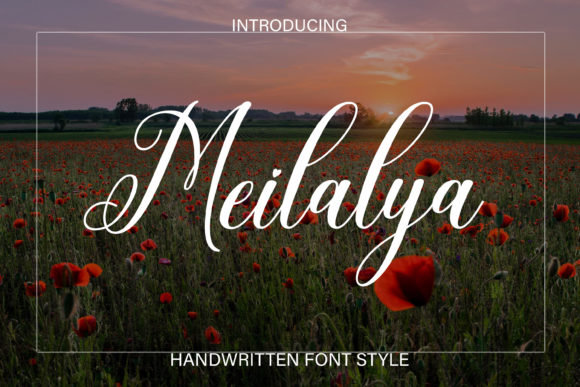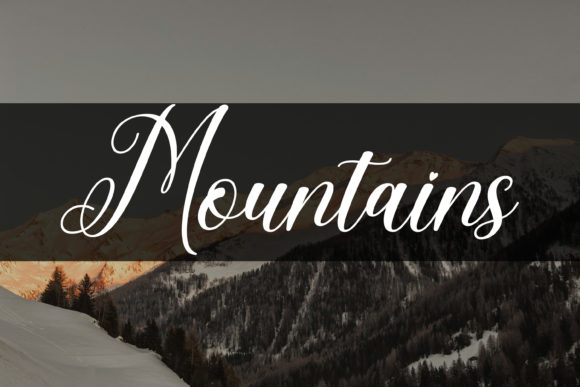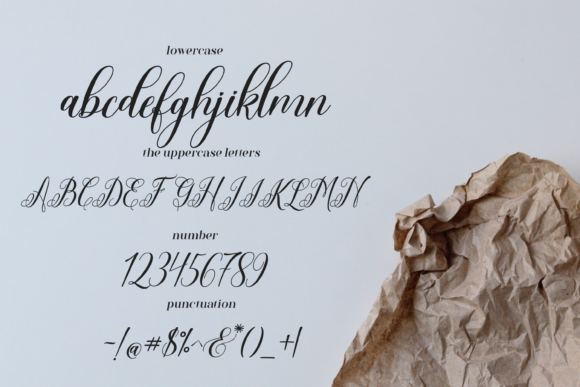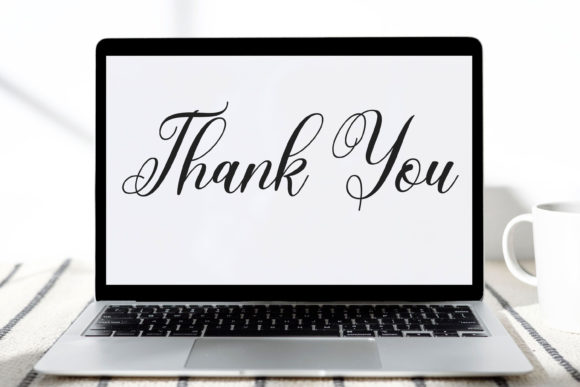
Meilalya Font
About Meilalya Font
**Meilalya** emerges as a magical script font, meticulously crafted with a touch of elegance. This font is designed to transform any creative idea into a true piece of art, making it a versatile and enchanting addition to various projects, from Instagram posts to DIY endeavors that call for the beauty of calligraphy scripts.
The magical essence of Meilalya is evident in its carefully created characters that evoke a sense of wonder and charm. Each letter is infused with a touch of elegance, creating a script that feels both enchanting and sophisticated. This font becomes a key element in turning ordinary creative ideas into extraordinary works of art.
Whether you’re seeking fonts for Instagram or calligraphy scripts for DIY projects, Meilalya rises to the occasion. Its versatility allows it to adapt seamlessly to different design contexts, enhancing the visual appeal of social media graphics, blog posts, handmade creations, and more. The font’s magical and elegant qualities bring a sense of artistry to every project.
The careful attention to detail in Meilalya ensures that it transcends beyond being a font; it becomes a magical tool for creative expression. Whether used for branding, invitations, or any design endeavor, Meilalya stands ready to elevate your projects with its enchanting and elegant script. Embrace the magic as it transforms your creative ideas into true pieces of art.